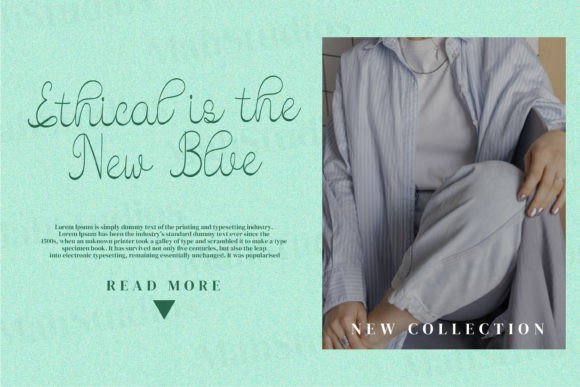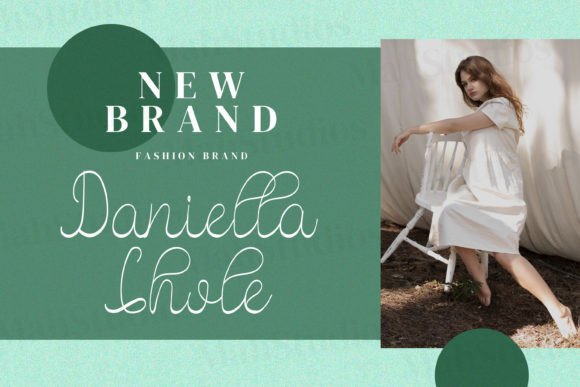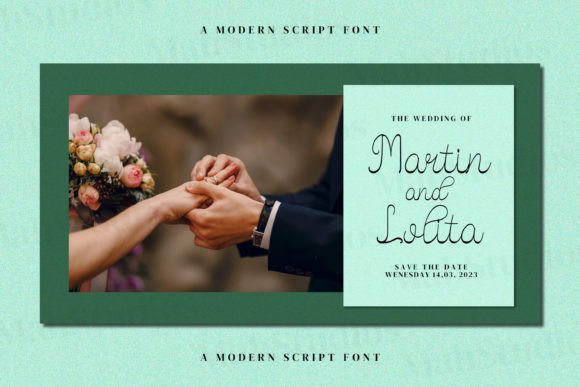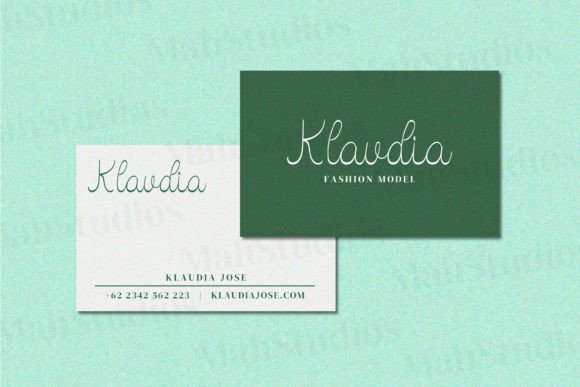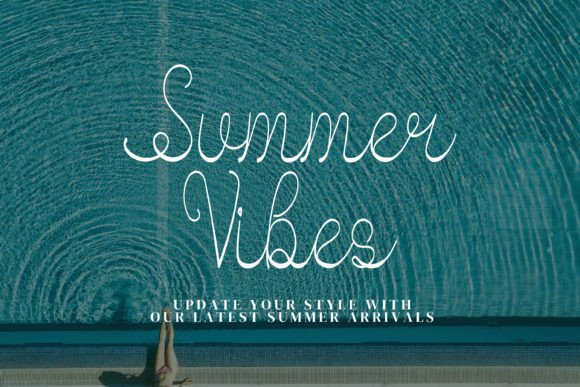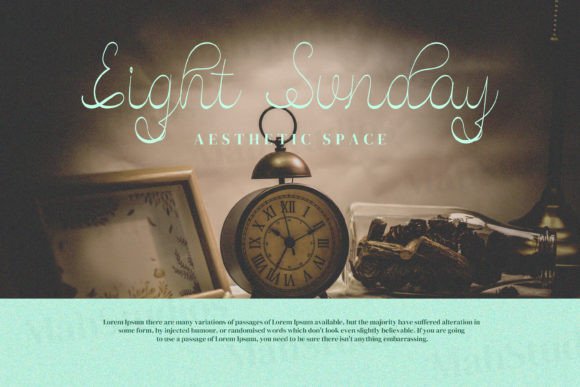
Discover the Elegance of Emalina Font
I’ll never forget the time I was working on a high-end branding project for a luxury fashion client. I had spent hours perfecting the design, but something was missing – the right font. I scoured the internet, tried countless combinations, but nothing seemed to fit the bill. That was until I stumbled upon Emalina Font. ✨
Introducing “Emalina”, an elegant and modern script font, crafted with precision to showcase a sophisticated and contemporary style. The smooth, flowing curves of each letter exude grace and class, making it perfect for upscale branding, invitations, and other high-end design projects.
What I Love About Emalina Font
Here’s what makes Emalina Font stand out:
- ✨ Elegant and modern design: Emalina Font boasts a sleek, contemporary style that’s perfect for luxury brands and high-end designs.
- ✅ PUA encoded: With PUA encoding, you can access all glyphs and swashes effortlessly, making it easy to customize your designs.
- 💫 Smooth, flowing curves: Each letter is carefully crafted to exude grace and class, adding a touch of sophistication to your designs.
- 🎨 Versatile: Emalina Font is perfect for a wide range of design projects, from branding and invitations to packaging and more.
Honest Review: A Few Quirks to Consider
While Emalina Font is an exceptional font, there are a few things to keep in mind:
- 🤔 Learning curve: With so many glyphs and swashes available, it may take some time to get familiar with the font’s features.
The Story Behind Emalina Font
Emalina Font was designed by a team of typographers who aimed to create a font that exudes elegance and sophistication. Inspired by classic calligraphy and modern digital design, Emalina Font is the perfect blend of traditional and contemporary styles.
| Font Name | Emalina Font |
| What is Emalina Font? | Emalina Font is an elegant and modern script font, perfect for upscale branding, invitations, and high-end design projects. |
| Is Emalina Font PUA encoded? | Yes, Emalina Font is PUA encoded, making it easy to access all glyphs and swashes. |